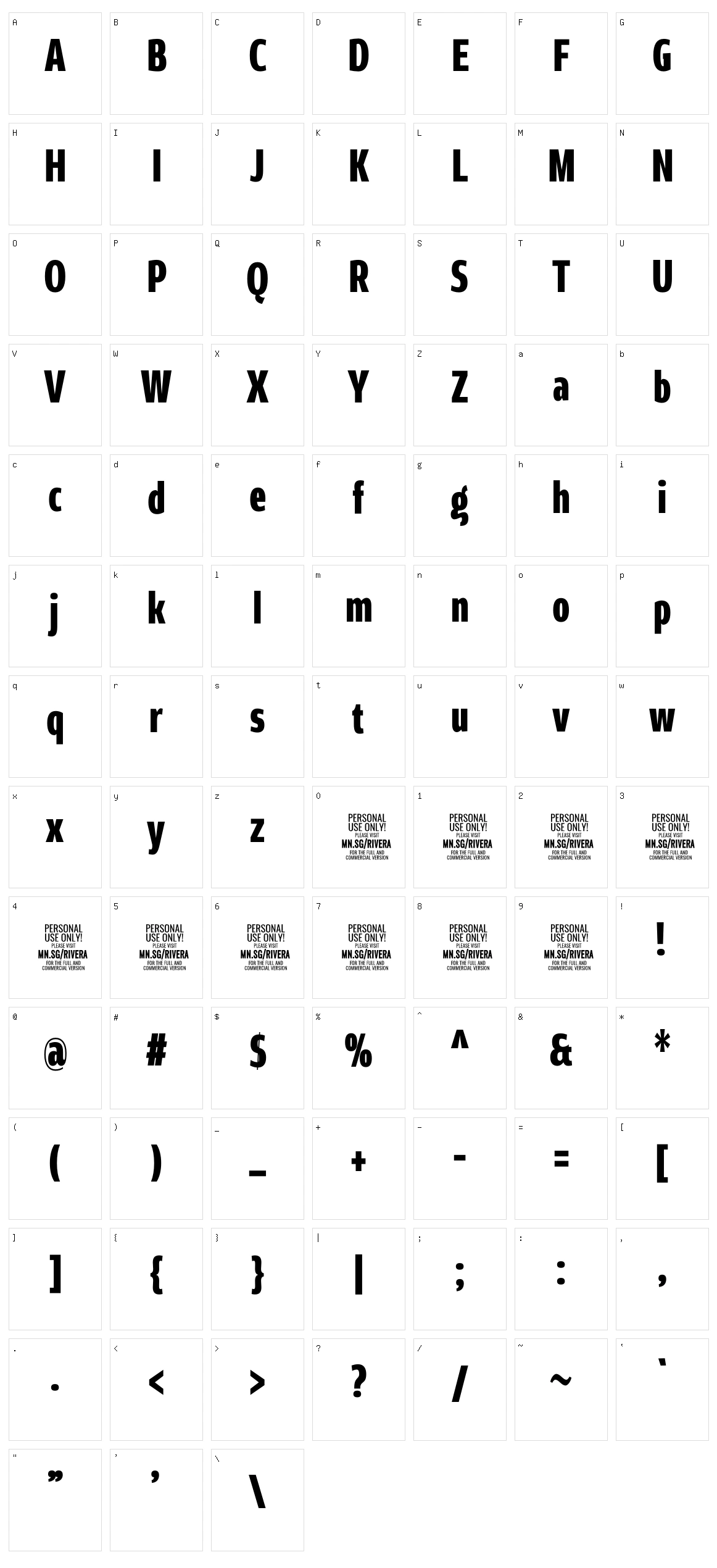
Rivera is a professional sans-serif typeface.
Its tall, narrow style gives it an appearance of modernity and pride, while being humble and clean.
Use it for a sleek headline, a crisp logo or simply as a unique body text. In any case, it will lift your branding to the next level.
The Rivera family consists of 10 font styles:
Thin, Light, Regular, Bold, Black as well as each style as Italic.
The font is built with advanced OpenType functionality and has a guaranteed top-notch quality, containing stylistic and contextual alternates, ligatures and more features; all to give you full control and customizability.
With more than 700 glyphs, it has extensive lingual support, covering all Latin-based languages, from North Europe to South Africa, from America to South-East Asia.
It contains all characters and symbols you'll ever need, including all punctuation and numbers.